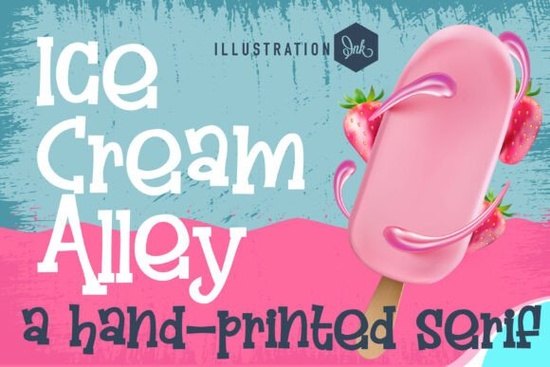
If you're looking for a display font that feels handmade, friendly, and full of summer charm without being overly sweet or cartoonish you’ll want to take a closer look at the Ice Cream Alley Family Font. It’s not just another script or handwritten typeface. Instead, it’s a thoughtfully crafted, hand-printed display font with chunky, irregular letterforms that mimic chalkboard signage, vintage packaging, and artisanal shop windows. Think seaside boardwalks, local ice cream trucks, and small-batch bakeries not big-box branding.
What makes Ice Cream Alley different from other playful fonts?
Most “fun” display fonts lean heavily into scripts, swirls, or bubbly outlines. Ice Cream Alley stands apart because it’s built on texture and rhythm not flourishes. Each character has a slightly uneven stamped silhouette, like something pressed into clay or carved into wood. The uppercase and lowercase letters sit on mixed baselines, giving layouts a relaxed, human-made feel. And unlike many rustic fonts, it holds up well at larger sizes without losing clarity or visual weight.
This isn’t a font you’d use for body text or fine print. It shines in contexts where personality matters more than precision: menu boards, t-shirt graphics, social media banners, product labels, and custom stickers. If your brand voice balances authenticity with light-heartedness think “handmade but not messy,” “playful but not childish” this one fits naturally.
Who uses Ice Cream Alley and how?
Small business owners running dessert shops, food trucks, or craft markets often choose Ice Cream Alley for signage and packaging. Print-on-demand sellers use it for summer-themed apparel (think “Sunshine & Sprinkles” tees or “Cherry on Top” tote bags). Designers building seasonal campaigns especially around spring and summer pair it with clean sans-serifs or soft serif companions for contrast.
Crafters appreciate that the font includes both uppercase and lowercase characters, plus basic punctuation and numbers. That means you can set full phrases not just single words without switching fonts mid-sentence. It also works well layered over photos or textured backgrounds, thanks to its bold footprint and clear negative space.
But none replicate Ice Cream Alley’s specific blend of structural heft and hand-stamped imperfection. It’s less about cursive elegance and more about the feeling of something made by hand, then proudly displayed.
Where to use it and where to avoid it
Great for:
- Shop signage and window decals
- Instagram story headers and Reel thumbnails
- Labels for jars, bottles, or gift boxes
- Embroidery digitizing (when scaled appropriately)
- Festival booth banners or market stall posters
Less ideal for:
- Long paragraphs or website navigation menus
- Small-size embroidery (under 1 inch tall)
- Branding that needs strict typographic consistency across languages
- Logos requiring tight kerning control at tiny sizes
One thing to keep in mind: since Ice Cream Alley is a display font, pairing it with a neutral, highly legible companion (like a clean sans-serif or low-contrast serif) helps balance visual weight and improves readability in mixed layouts.
Try it alongside real-world references